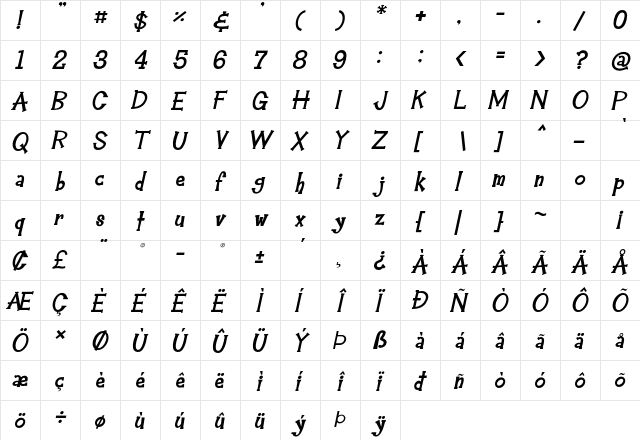
Hey Alfred Italic
Design Context for Hey Alfred Typeface
Hey Alfred offers clean, dependable letterforms without strong stylistic allegiance, making it a practical choice for designers who need flexibility. The dynamic lean of this cut emphasises speed and emphasis in any layout.